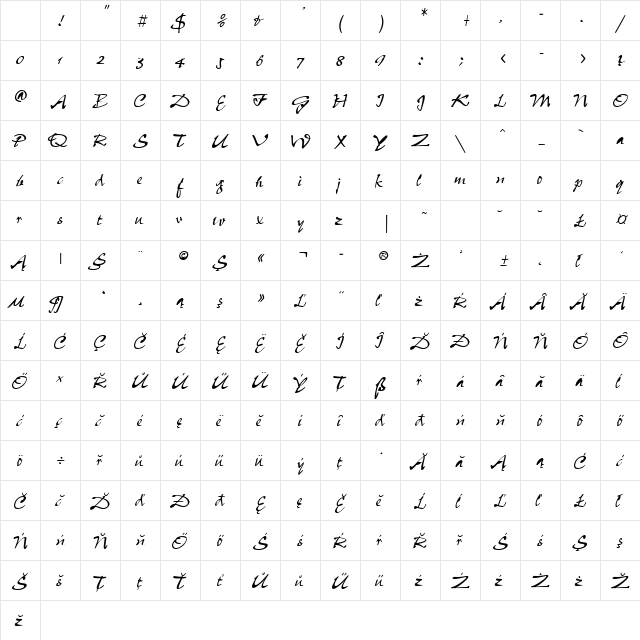
Complete Pepper Normal glyph index. Displaying only characters natively supported by Pepper Normal font.
Pepper is a composed and adaptable typeface that performs quietly and consistently across a wide range of design contexts.